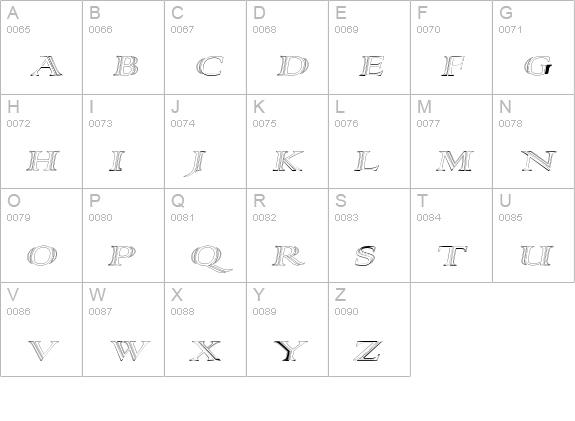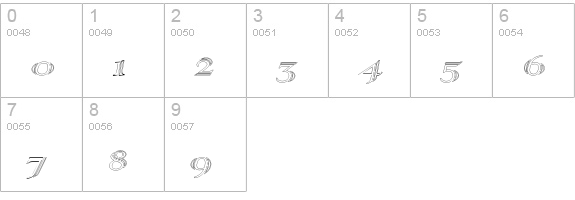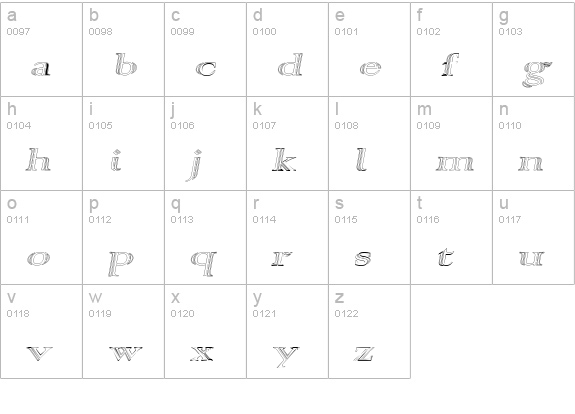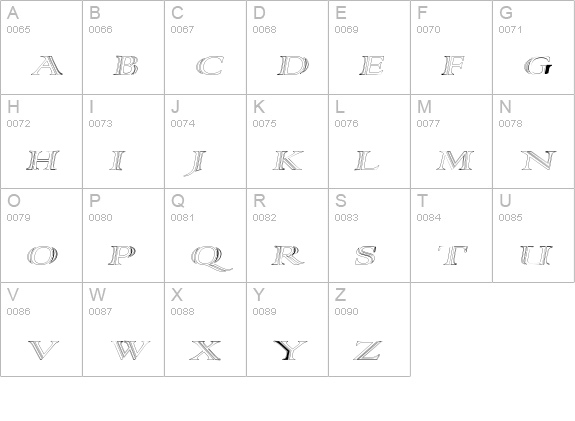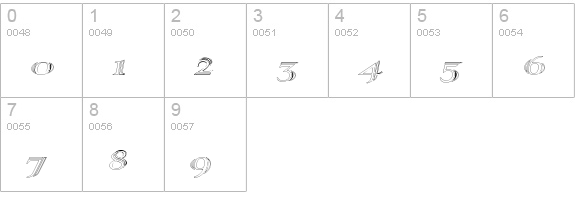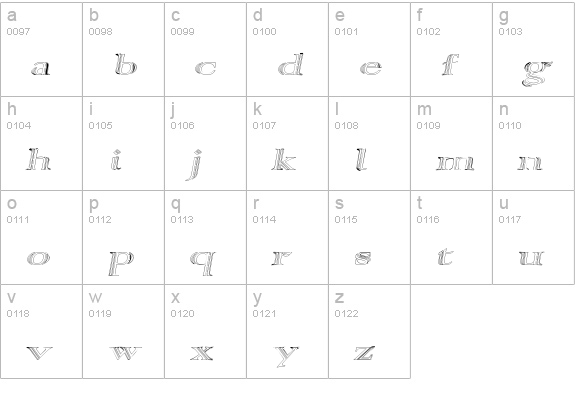
AlphaRev Hollow Font Details
Introducing AlphaRev Hollow font, a stunning display typeface that exudes elegance and modernity. With its unique hollow design, this font is sure to make a bold statement in any project. Whether you're designing a logo, poster, or website, AlphaRev Hollow will add a touch of sophistication and creativity. Best of all, AlphaRev Hollow is completely free to download at FontsMarket.com. This means you can easily access this beautiful font and use it in your personal or commercial projects without any cost. Don't miss out on this incredible opportunity to enhance your designs with AlphaRev Hollow font. Download it today and let your creativity shine!